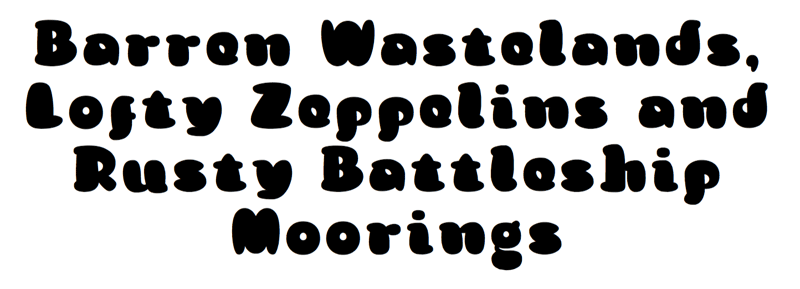
Preview and download Kong Quest Font. Created by Ben Dunkle in Fancy Cartoon styles with 100% Free license.
KongQuest is a somewhat retro, bubbly and fun cartoon font. It reminds me of old comic strips. |